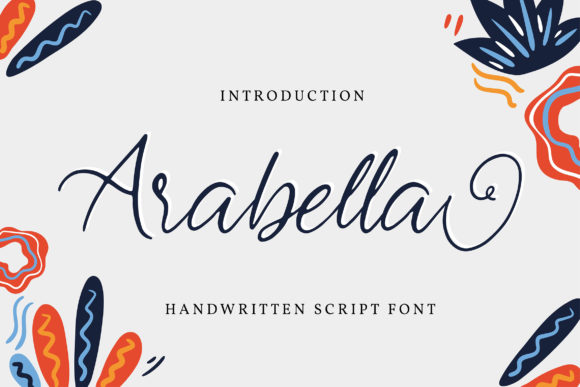
Behold the Arabella Font, an exquisite creation by the esteemed Vunira, a name synonymous with typographic excellence. This font, a captivating dance of slender strokes and graceful curves, belongs to the illustrious script family, renowned for its timeless elegance and undeniable charm.
Journey with us into a realm where words become art, where your designs transcend the ordinary and embrace the extraordinary. The Arabella Font is your muse, your faithful companion in transforming the mundane into the magnificent. With its delicate hairlines and sweeping flourishes, this font breathes life into your creations, imbuing them with a touch of whimsy and a hint of sophistication.
Unleash your creativity and let the Arabella Font guide you through a symphony of visual masterpieces. Picture wedding invitations that whisper romance, logos that exude professionalism, and social media posts that captivate audiences with their allure. The possibilities are endless, bound only by the limits of your imagination.
Dive into a world where beauty and functionality intertwine seamlessly. The Arabella Font is a versatile chameleon, effortlessly adapting to a myriad of design projects. Its slender strokes lend an air of sophistication to branding materials, while its flowing curves add a touch of playfulness to personal projects.
But the Arabella Font's true magic lies in its ability to evoke emotions, to stir the heart and awaken the senses. Its delicate lines dance across the page, whispering secrets and painting pictures that words alone cannot capture. With every letter, you'll weave a tapestry of stories, engaging your audience and leaving them spellbound.